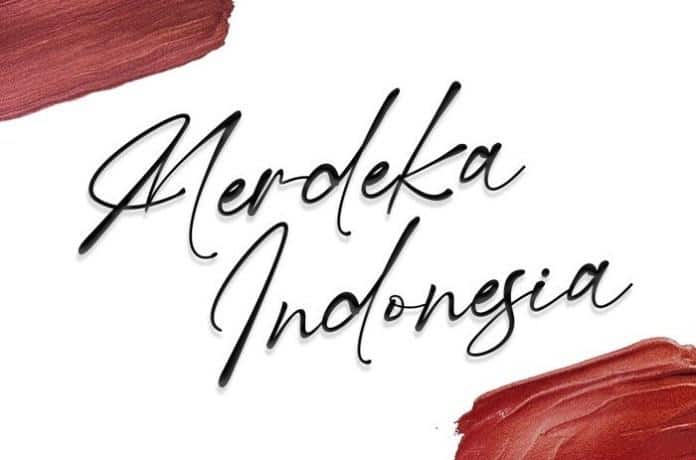
Glad to introduce you a new Merdeka Indonesia Font – is a wet ink textured signature script. This font is perfect for your branding needs!
Throw it on logos, prints, websites, and more! Everyone is looking for that next signature style font. Look no further! This beauty will make all of your designs pop.